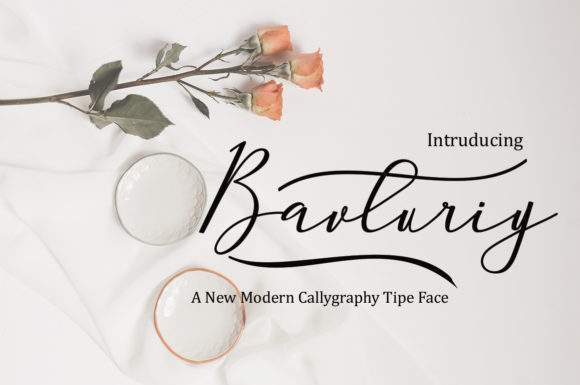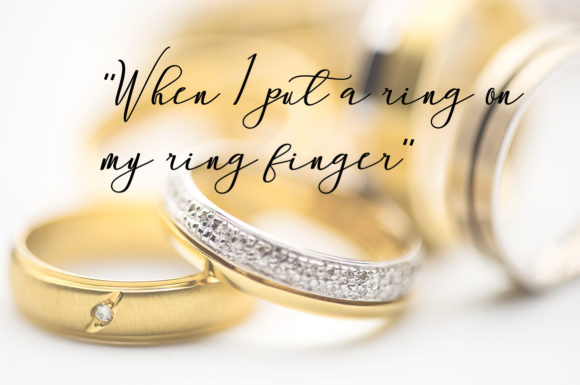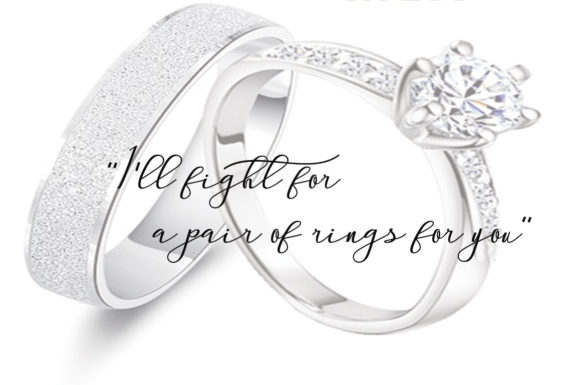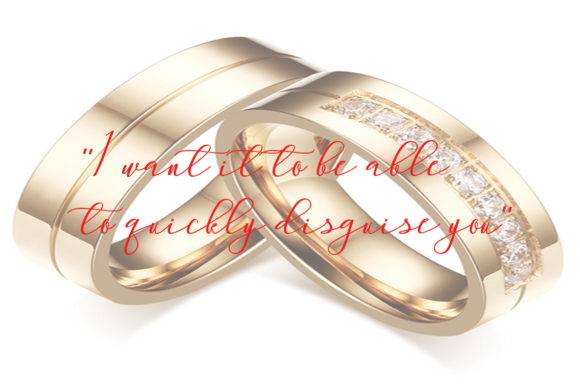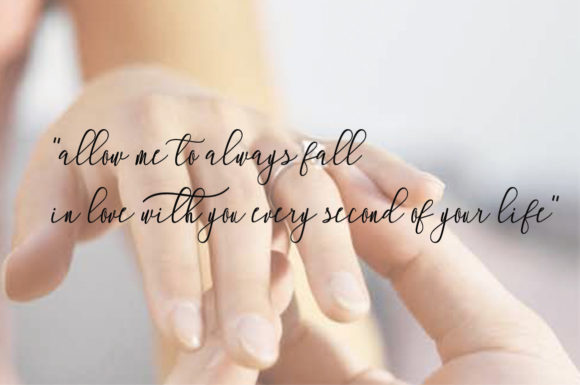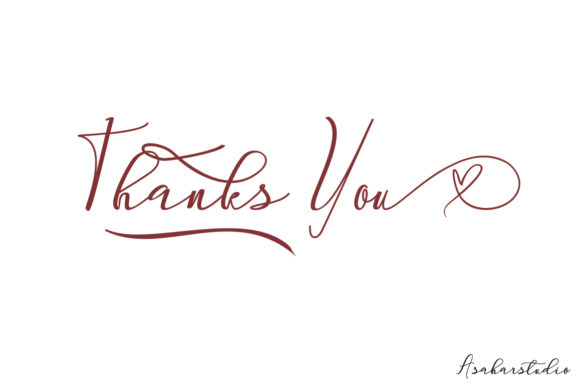
Bavturiy Font
About Bavturiy Font
The Bavturiy is an elegant brush script. It has a modern calligraphy look and is perfect for adding a natural touch to your designs.